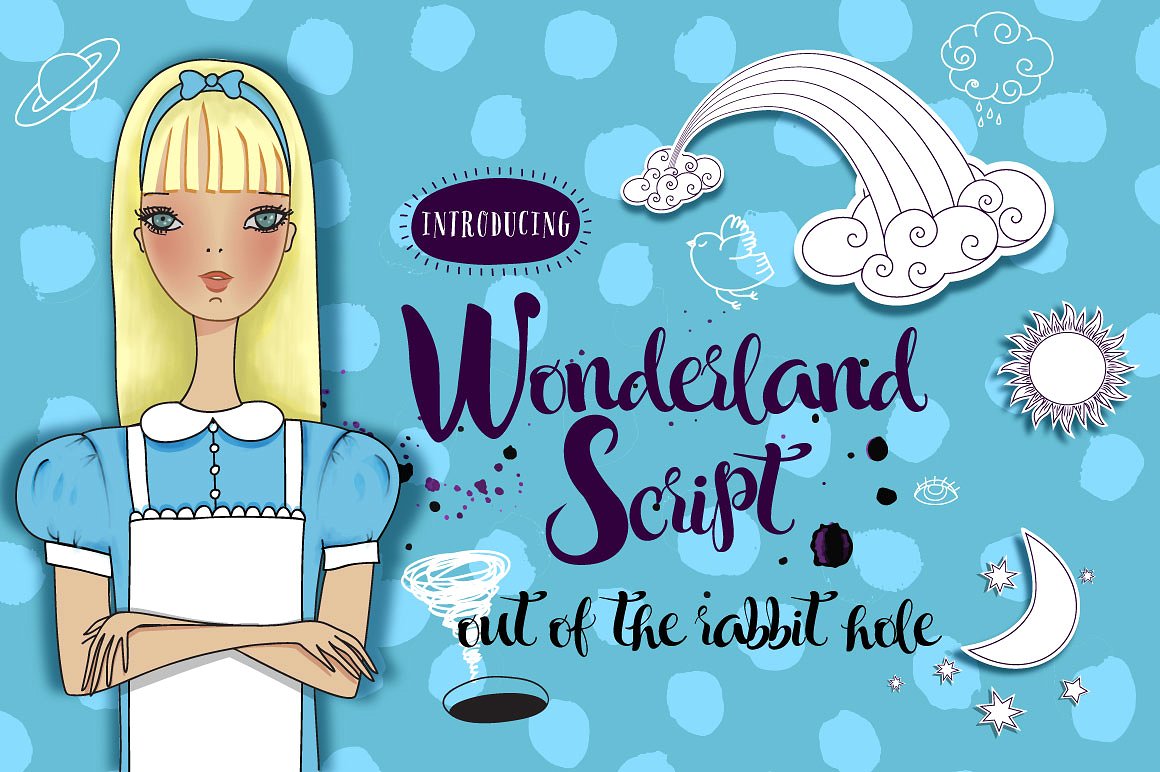
Wonderland Script
Wonderland Script Font
Wonderland Script includes international characters and alternates. Depending on whether they are at the beginning, middle or end of a word, some glyphs are replaced with their alternates as you type, so you don’t have to search for suitable replacement. Access to a glyphs panel enables you to choose the style of some characters, but with such a clever typeface it isn’t necessary 🙂
Wonderland Script